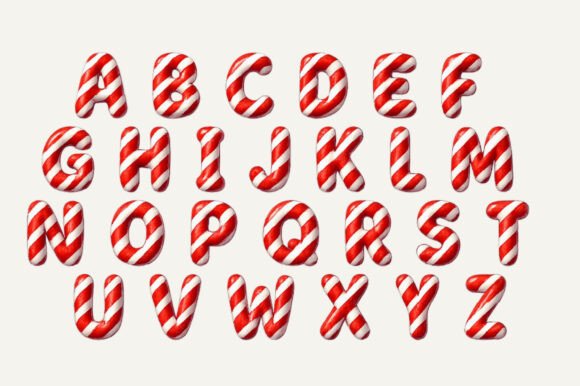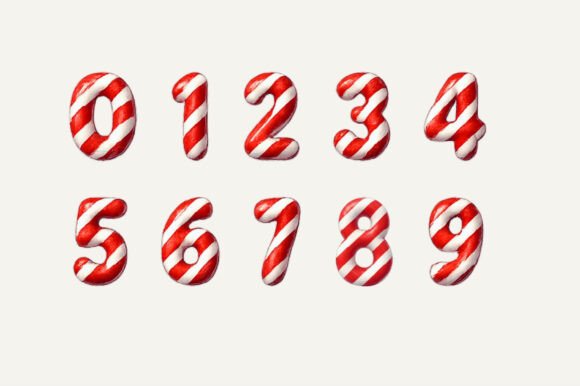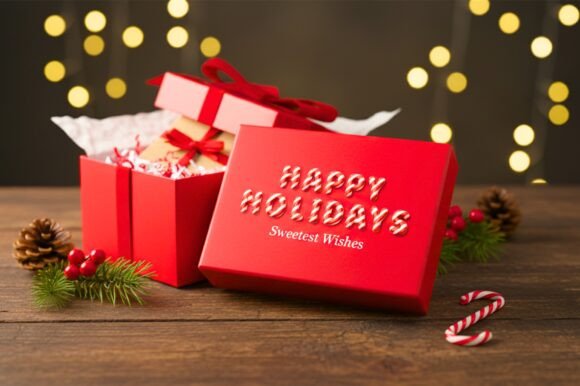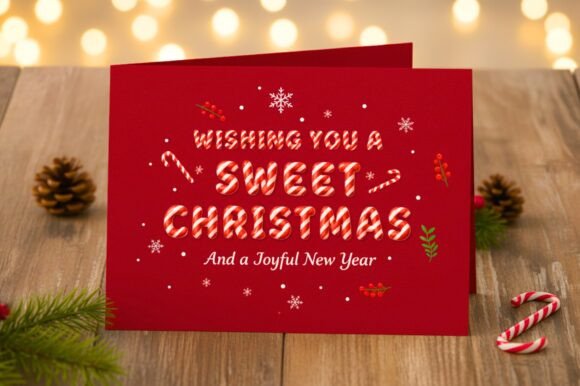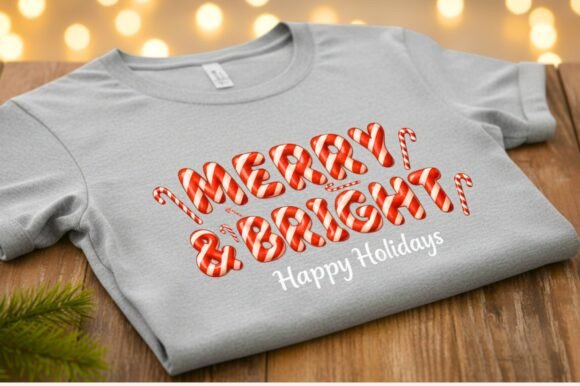
The Sweetest Holiday Decoration for Your Designs
As you sit by the fireplace, sipping hot cocoa and brainstorming ideas for your holiday projects, you can’t help but feel the excitement and magic of the season. Suddenly, a burst of creativity hits you – what if you could infuse your designs with the festive spirit of a classic candy cane?
Introducing the 3D Christmas Candy Cane Font, a delightful and eye-catching typeface that brings the cheer of the holiday season to your projects. With its bold red and white stripes, this font is perfect for adding a sweet touch to Christmas cards, New Year invitations, and festive posters. As a designer, you’ll love the versatility of this font, which can be used for everything from social media graphics to bakery logos and packaging.
With the 3D Christmas Candy Cane Font, you can capture the essence of the holiday season and make your designs stand out from the crowd. Whether you’re a seasoned designer or a crafty DIY enthusiast, this font is sure to bring a smile to your face and a touch of holiday magic to your projects.
Key Features of 3D Christmas Candy Cane Font
- Unique 3D Effect: The font features a realistic 3D candy cane design, adding a festive touch to any project.
- Font Style: The font is a bold, sans-serif style, making it perfect for headings and titles.
- Characters and Glyphs: The font includes a wide range of characters, including uppercase and lowercase letters, numbers, and special characters.
- Christmas-themed: The font is specifically designed for Christmas-themed projects, making it a great choice for holiday cards, gift tags, and more.
Designer Review: 3d Christmas Candy Cane Font
I recently had the chance to work with the 3d Christmas Candy Cane Font, and I have to say it’s a unique and eye-catching addition to any holiday design project ✨. The font is designed to resemble a 3D candy cane, complete with textures and shading that give it a realistic appearance. The font is also highly customizable, with options to change the color, size, and texture to suit your design needs.
The font works well in a variety of contexts, from greeting cards to social media graphics. The 3D effect adds a fun and playful touch to your design, making it perfect for holiday-themed projects ✨. The font is also highly scalable, so it looks great on both small and large designs.
Limitsations
While the 3d Christmas Candy Cane Font is a great addition to any holiday design project, there are a few limitations to be aware of ⚠️. The font is only available in a limited range of colors, which may limit your design options. Additionally, the font can be quite heavy and overpowering if used in excess, so be sure to use it sparingly to avoid overwhelming your design.
Overall, I’m really impressed with the 3d Christmas Candy Cane Font. It’s a fun and unique addition to any holiday design project, and the customization options make it easy to use in a variety of contexts. With a little creativity and restraint, this font can really help your holiday designs stand out ✨.
Key Features
- 3D texture and shading for a realistic appearance
- Highly customizable with options to change color, size, and texture
- Scalable for use on both small and large designs
- Limited range of available colors
- Can be heavy and overpowering if used in excess
The 3D Christmas Candy Cane font is perfect for creating festive holiday designs, such as:
- Christmas cards and invitations
- Holiday party invitations